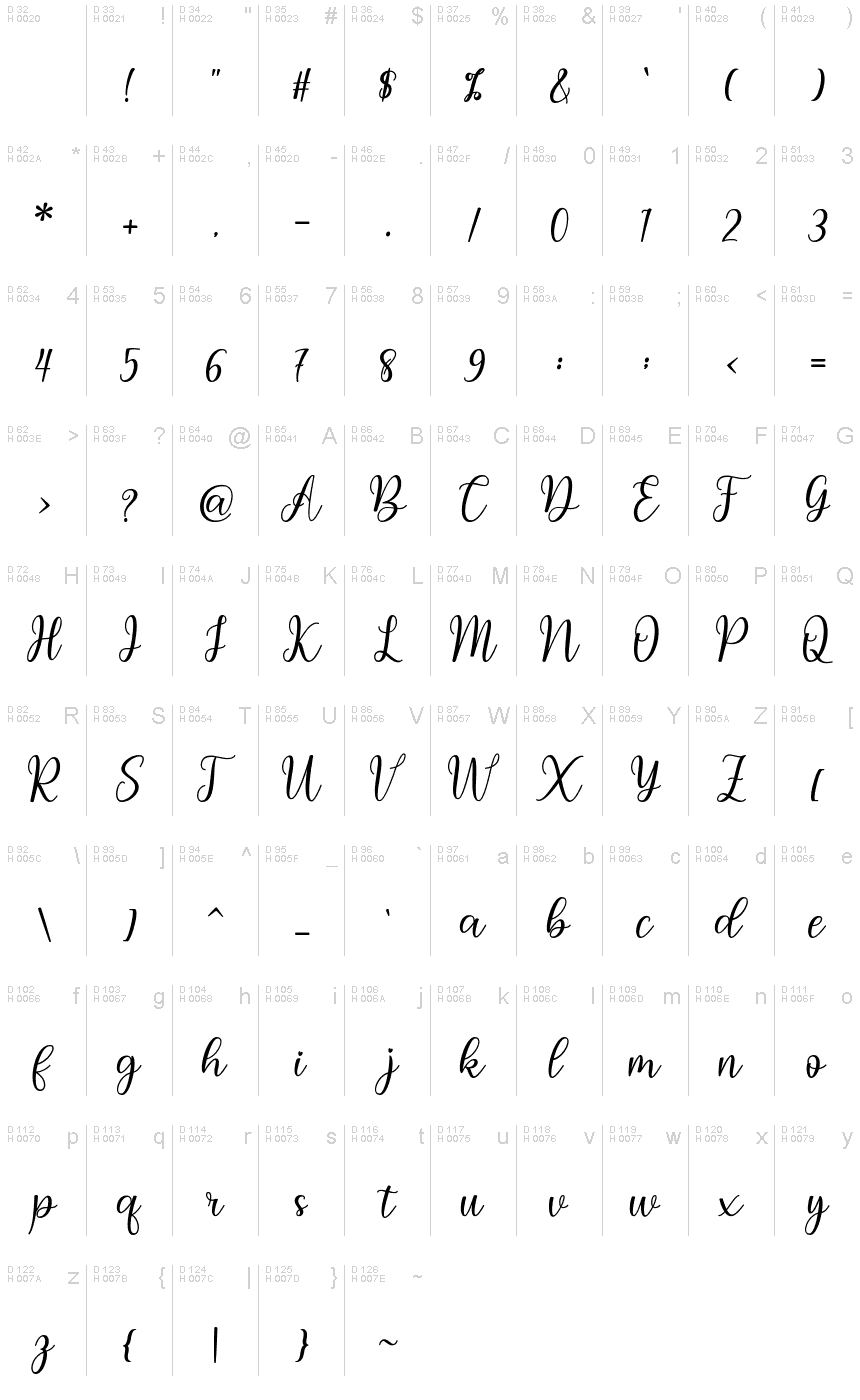
BabyLalisa
Baby Lalisa, designed by Cut Story, is a captivating calligraphy font that exudes elegance and grace. With its semi-light weight, it adds a touch of delicacy to any project. Perfect for wedding invitations, feminine branding, or heartfelt quotes, this font effortlessly captures attention with its intricate strokes and whimsical curves. Let Baby Lalisa elevate your designs with its enchanting charm and create a lasting impression. Whether you're crafting romantic stationery or designing dreamy logos, this divine calligraphy font is sure to make your projects shine.